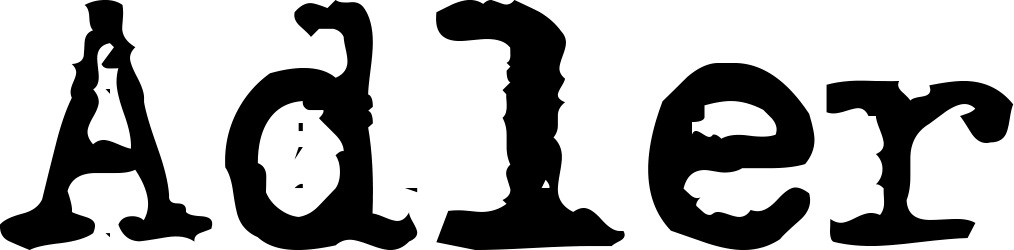
Adler Font
Let’s enjoy this rustic font! Adler is a typewriter font with an edge and bold design that can be an excellent choice for designing your traditional poster, movie titles, greeting cards, websites, and more. It can provid…
Let’s enjoy this rustic font! Adler is a typewriter font with an edge and bold design that can be an excellent choice for designing your traditional poster, movie titles, greeting cards, websites, and more.
It can provide a classical and vintage style for readers. This font has emerged with a grunge and distress design that can be effective to attract much attention. Be careful to use it, it doesn’t have all punctuation. Get it right now and enjoy!